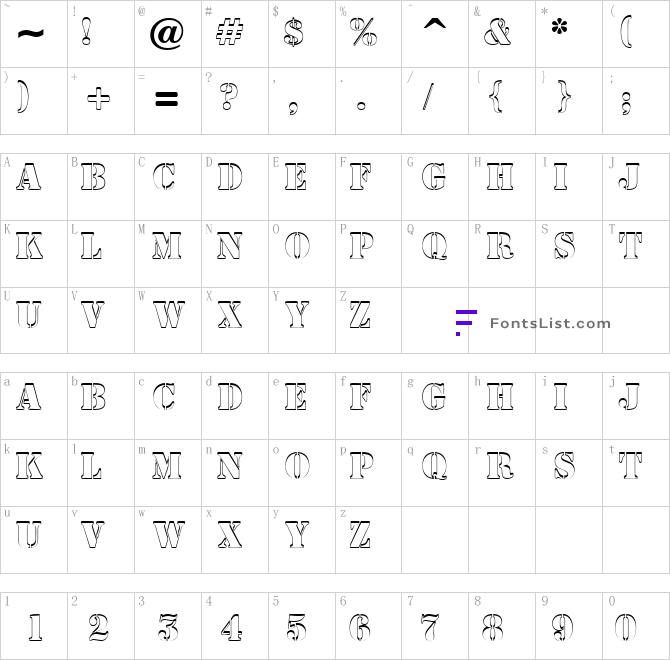
- Font Name:a_StamperSh
a_StamperSh.ttf is a very beautiful artistic font, a_StamperSh.ttf is widely used in the design and printing of various books and pictures,a_StamperSh.ttf has a strong visual impact,a_StamperSh.ttf is a commonly used font in newspapers, magazines and books, and is used in posters, e-commerce Poster design, store design, logo design, font design and other fields.a_StamperSh.